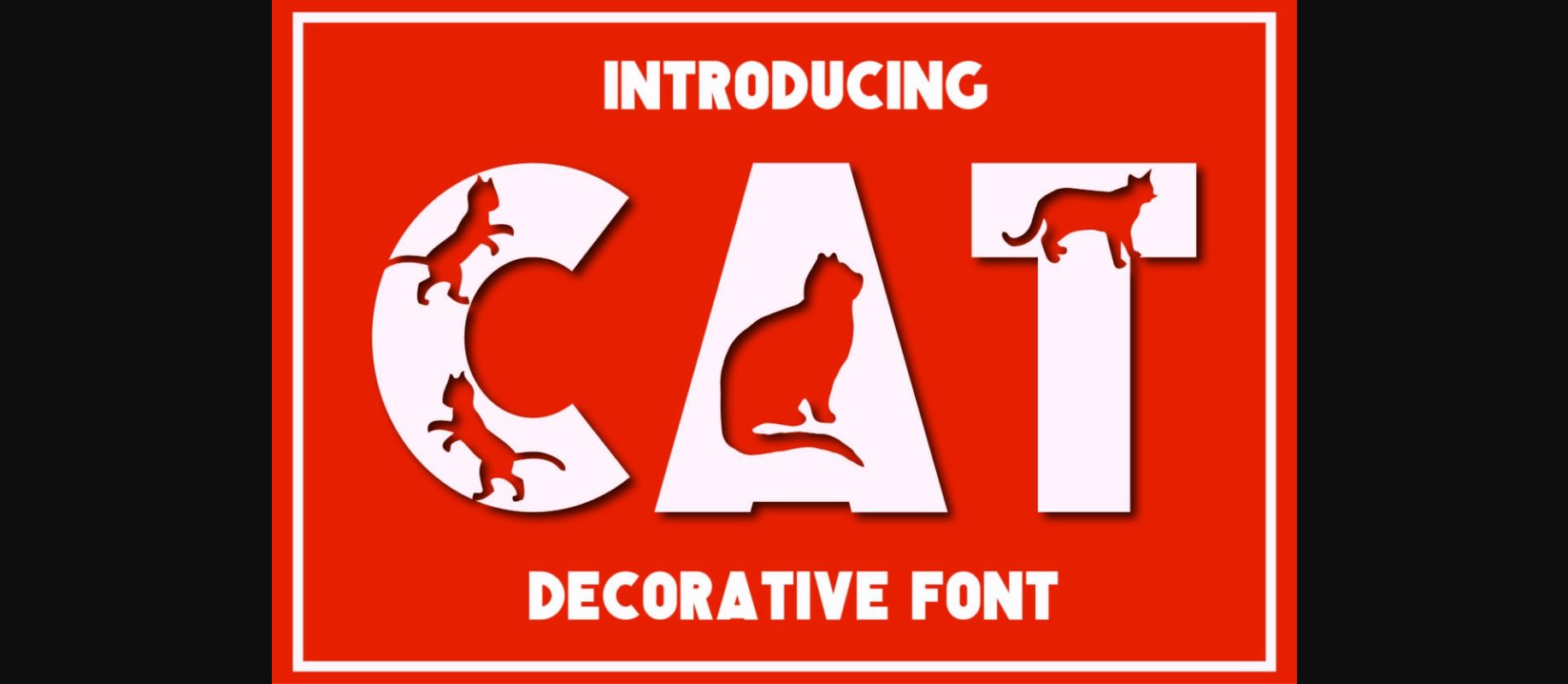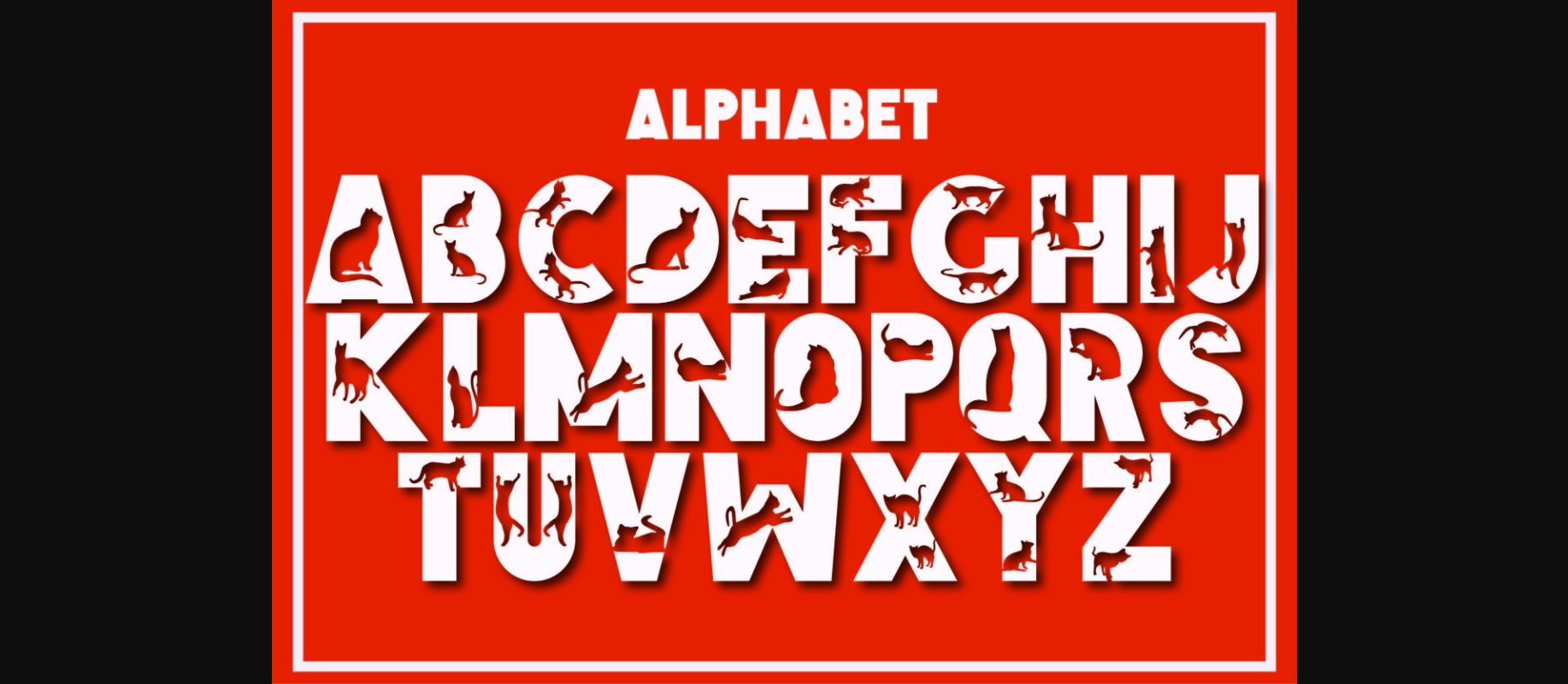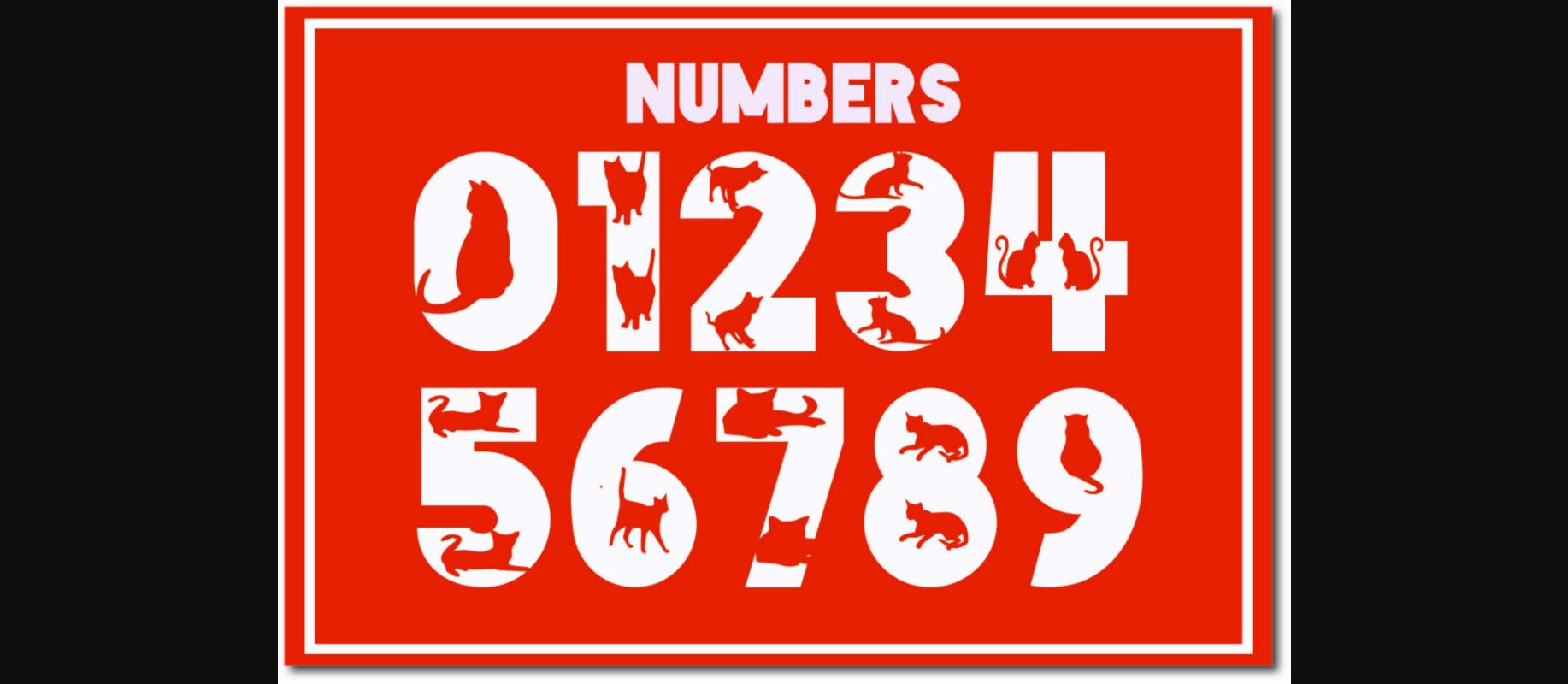
HomeDecorative FontsCat Font Decorative Fonts Cat Font FacebookXPinterestWhatsApp 1 of 5 ... Cat Font Poster 2... Cat Font Poster 3... Cat Font Poster 4... Cat Font Poster 5... About Cat Font Cat is a cool and friendly decorative font. Whether you use it for cartoon-related designs, children’s games, or just any creation that requires a lovely touch, this font will be an amazing choice. DOWNLOAD NOW People also explored Ghost Font Modernmine Font Bernard Wacker Vollison Rose Blossom Monogram Font Lovely Star Font Noel Font Someday Font Romatrix Font 327 0 TagsCatCat Font Previous articleCancer FontNext articleSkeleton Bone Font LEAVE A REPLY Cancel reply Comment: Please enter your comment! Name:* Please enter your name here Email:* You have entered an incorrect email address! Please enter your email address here Website: Save my name, email, and website in this browser for the next time I comment. Personal Use Free Burgie Personal Use Free Read more about this font Sweet Cake Personal Use Free Read more about this font Foolish Hand Personal Use Free Read more about this font Term Free Personal Use Free Read more about this font BLOG Using Fonts in Digital Marketing: Tips to Strengthen Your Brand Identity In the realm of digital marketing, every visual element plays a crucial role in shaping a brand's identity, and fonts are no exception. The... Elegant Wedding Invitation Fonts – Handwritten & Script Fonts Top 10 Handwritten Fonts That Elevate Your Designs The 10 Best Handwriting Fonts to Add Personality to Your Designs